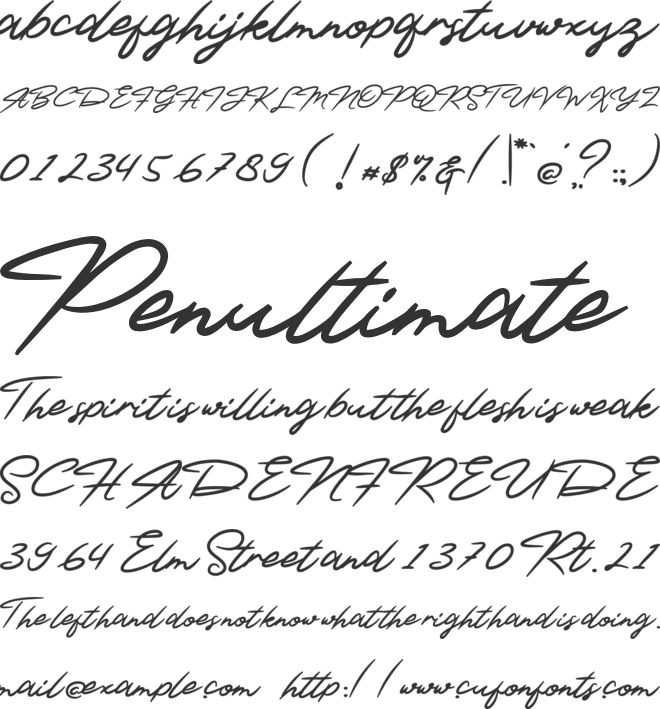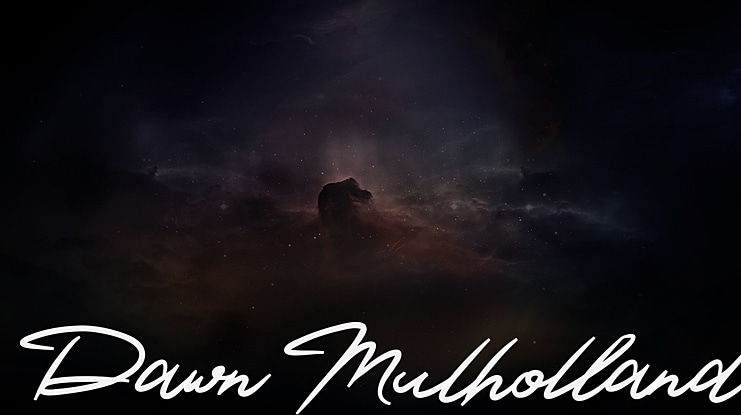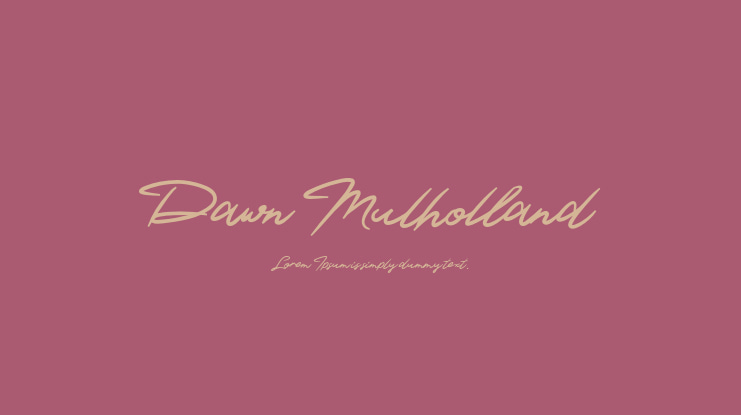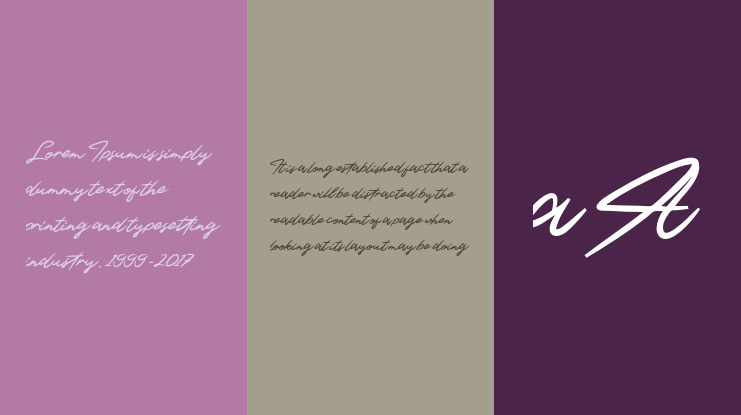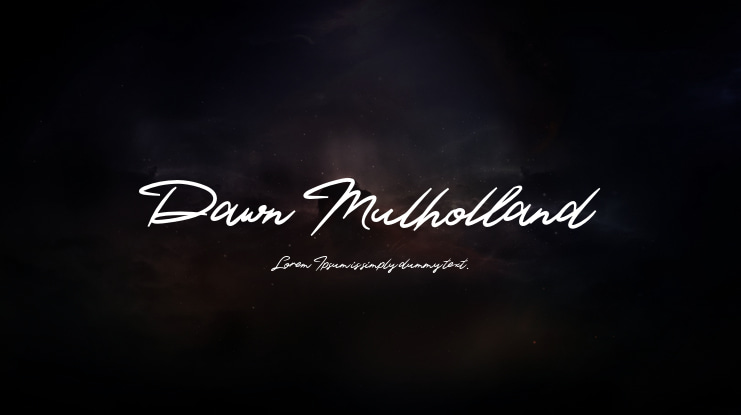
Dawn Mulholland Font
Dawn Mulholland Modern Script Typeface, A collection of letters and numbers suitable your projects also great for Logotype, Branding Design, Logo Design, Digital Lettering Arts, T-Shirt/Apparel, Poster, Magazine, Signs, Advertising Design, and any design needsClick our website :https://staircaselab.com/product/dawn-mulholland/